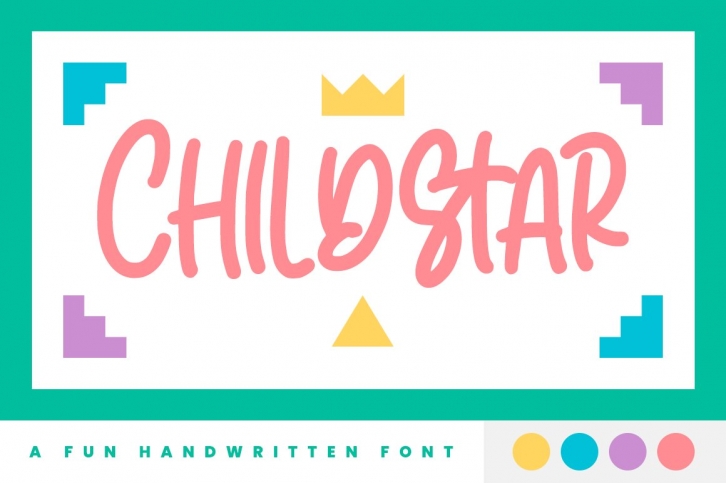
Childstar is a trendy and unique font with an authentic style. It was designed by Fatma Studio and it's a great choice for creative people who need such a font. It was released on September 11, 2021 and the file size is 13.87 MB. Childstar will add an organic vibe to any design idea!